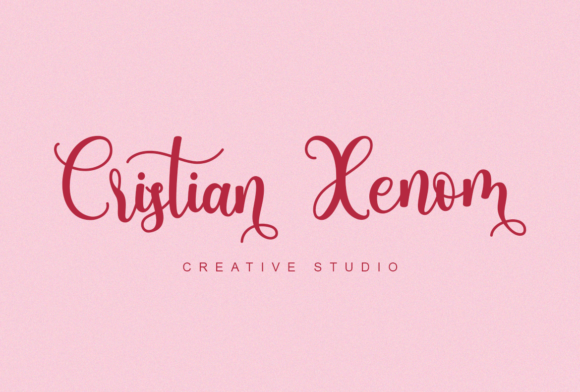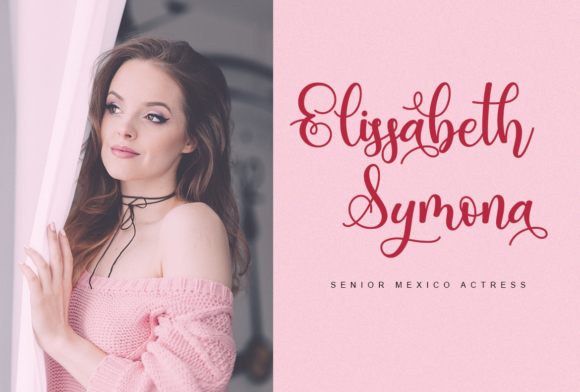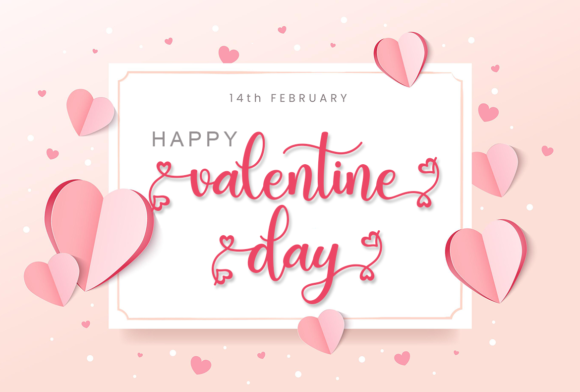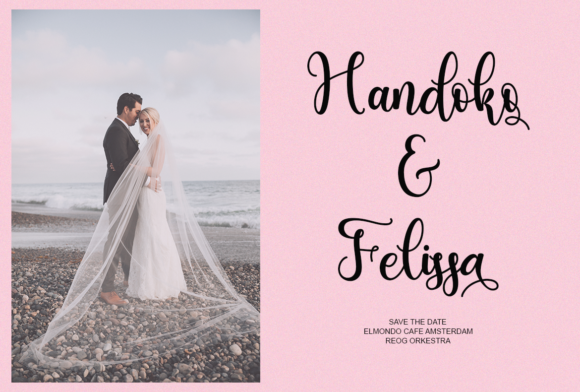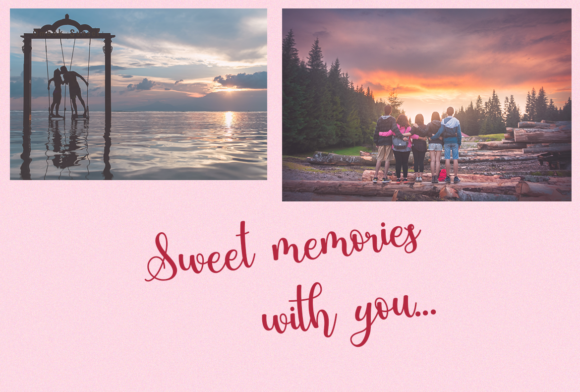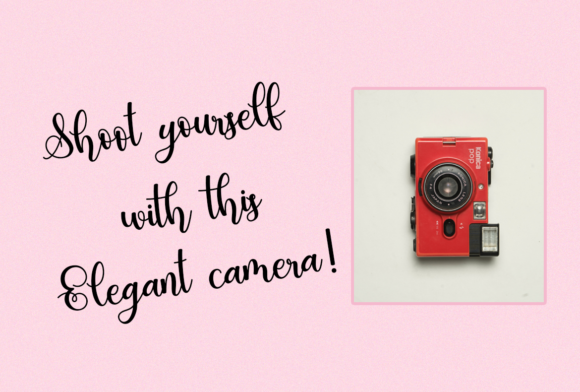
Discover the Charm of Hello Bucin Font: A Dainty and Cursive Romantic Font
Are you looking for a font that can add a touch of romance and joy to your design projects? Look no further than Hello Bucin Font! This beautiful, cursive font is perfect for designers and crafters who want to create stunning and elegant designs. In this article, we’ll explore the features and benefits of Hello Bucin Font and show you how it can elevate your designs to the next level.
What is Hello Bucin Font?
Hello Bucin Font is a dainty and cursive romantic font that is designed to add a touch of elegance and sophistication to your designs. Its gentle and flowing curves make it perfect for a variety of design ideas, from wedding invitations and stationery to branding and packaging.
This lovely font is carefully crafted to bring a sense of joy and romance to your projects. Whether you’re designing for a client or working on a personal project, Hello Bucin Font is sure to impress. Its unique and distinctive style will set your designs apart from the rest and make them truly unforgettable.
Key Features of Hello Bucin Font
So, what makes Hello Bucin Font so special? Here are some of its key features:
- PUA Encoded: Hello Bucin Font is PUA encoded, which means you can access all of the glyphs and swashes with ease. This makes it easy to use and customize the font to suit your needs.
- Dainty and Cursive: The font’s dainty and cursive style makes it perfect for creating elegant and sophisticated designs.
- Romantic and Joyful: Hello Bucin Font is designed to add a touch of romance and joy to your designs. Its gentle curves and flowing lines make it perfect for creating designs that are both beautiful and emotive.
How to Use Hello Bucin Font
Hello Bucin Font is easy to use and can be incorporated into a variety of design projects. Here are some ideas to get you started:
- Wedding Invitations: Use Hello Bucin Font to create beautiful and elegant wedding invitations that will set the tone for the big day.
- Stationery: Add a touch of romance and sophistication to your stationery designs with Hello Bucin Font.
- Branding: Use Hello Bucin Font to create a unique and distinctive brand identity that will set your business apart from the rest.
- Packaging: Add a touch of elegance and sophistication to your packaging designs with Hello Bucin Font.
Benefits of Using Hello Bucin Font
So, why should you choose Hello Bucin Font for your design projects? Here are some benefits of using this beautiful font:
- Elegant and Sophisticated: Hello Bucin Font is designed to add a touch of elegance and sophistication to your designs.
- Unique and Distinctive: The font’s unique and distinctive style will set your designs apart from the rest and make them truly unforgettable.
- Easy to Use: Hello Bucin Font is PUA encoded, making it easy to use and customize.
- Versatile: The font can be used for a variety of design projects, from wedding invitations and stationery to branding and packaging.
Hello Bucin Font is a beautiful and elegant cursive font that is perfect for designers and crafters who want to add a touch of romance and joy to their designs. Its dainty and flowing curves make it perfect for a variety of design ideas, and its PUA encoding makes it easy to use and customize. Whether you’re designing for a client or working on a personal project, Hello Bucin Font is sure to impress. So why wait? Download Hello Bucin Font today and start creating stunning and elegant designs that will leave a lasting impression!